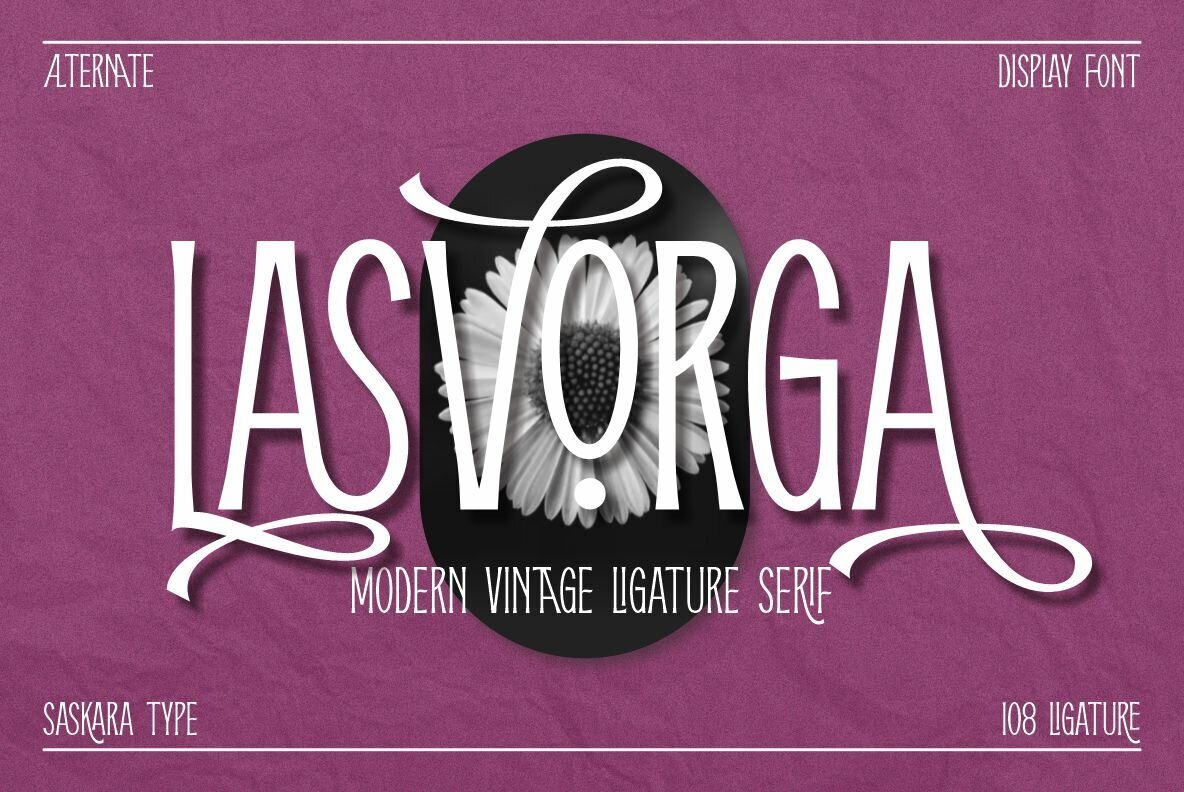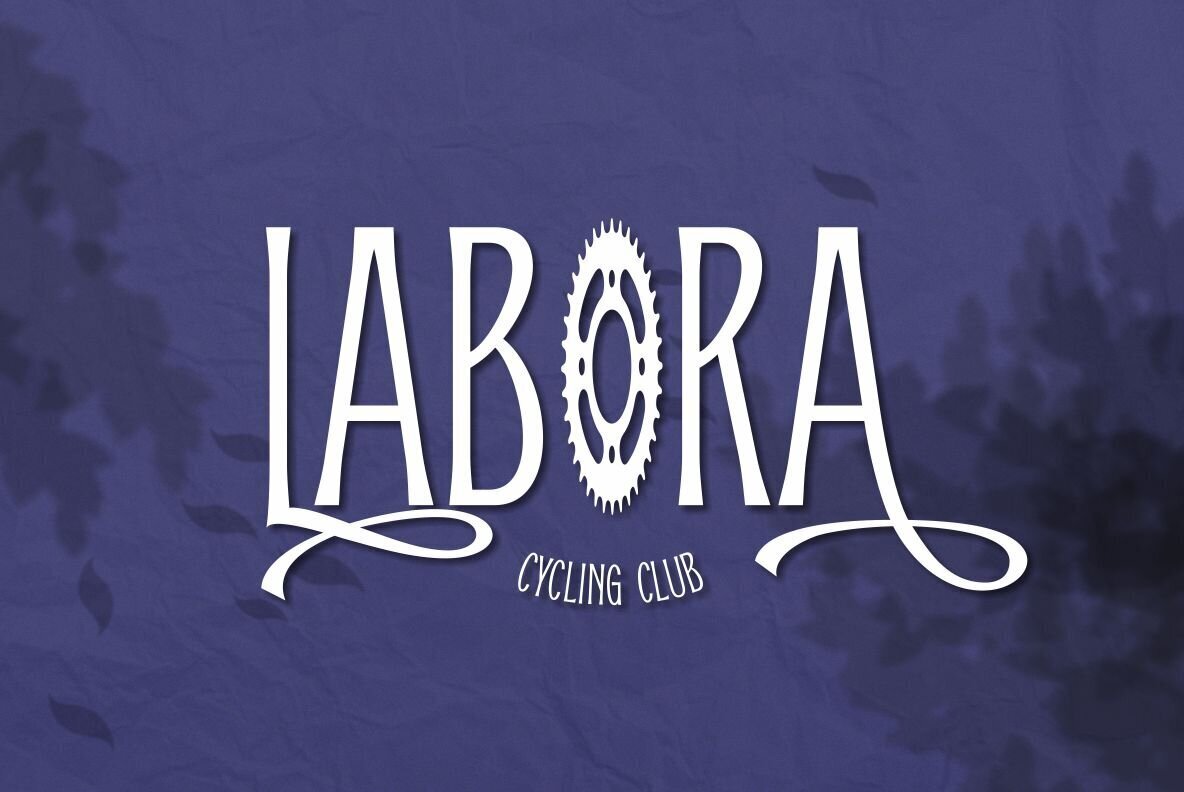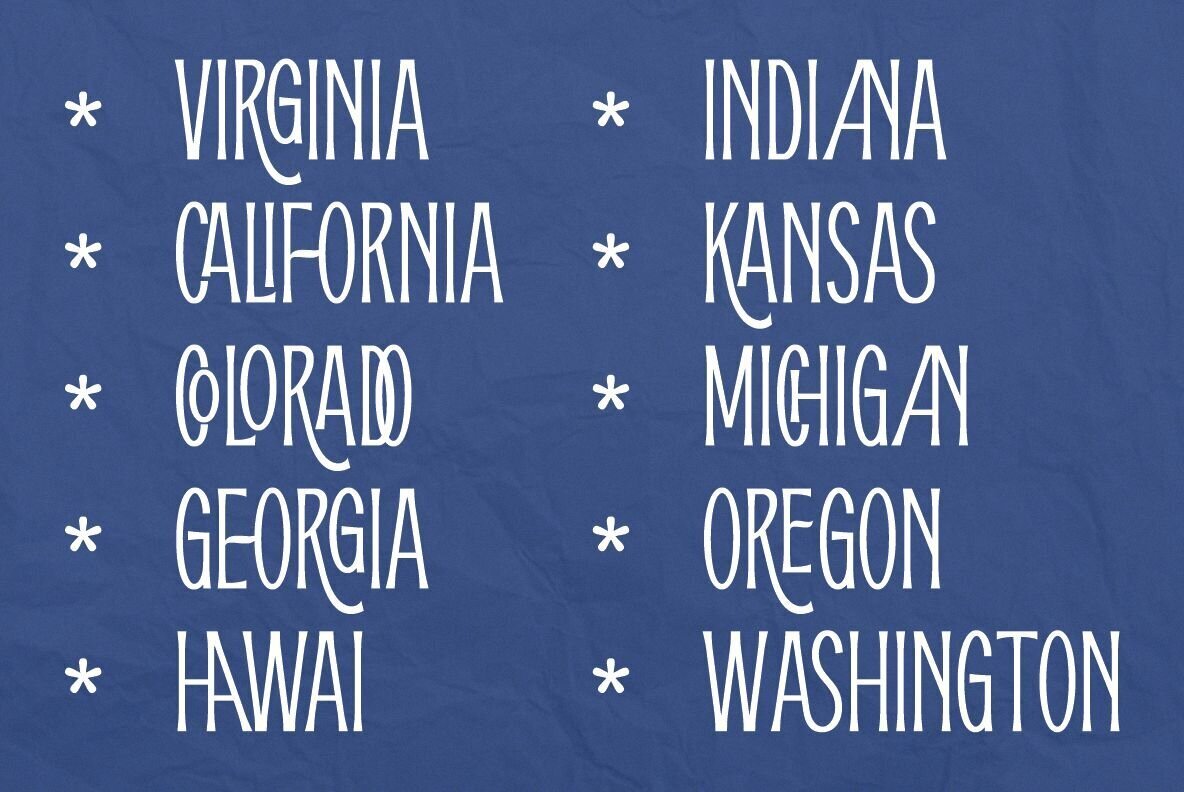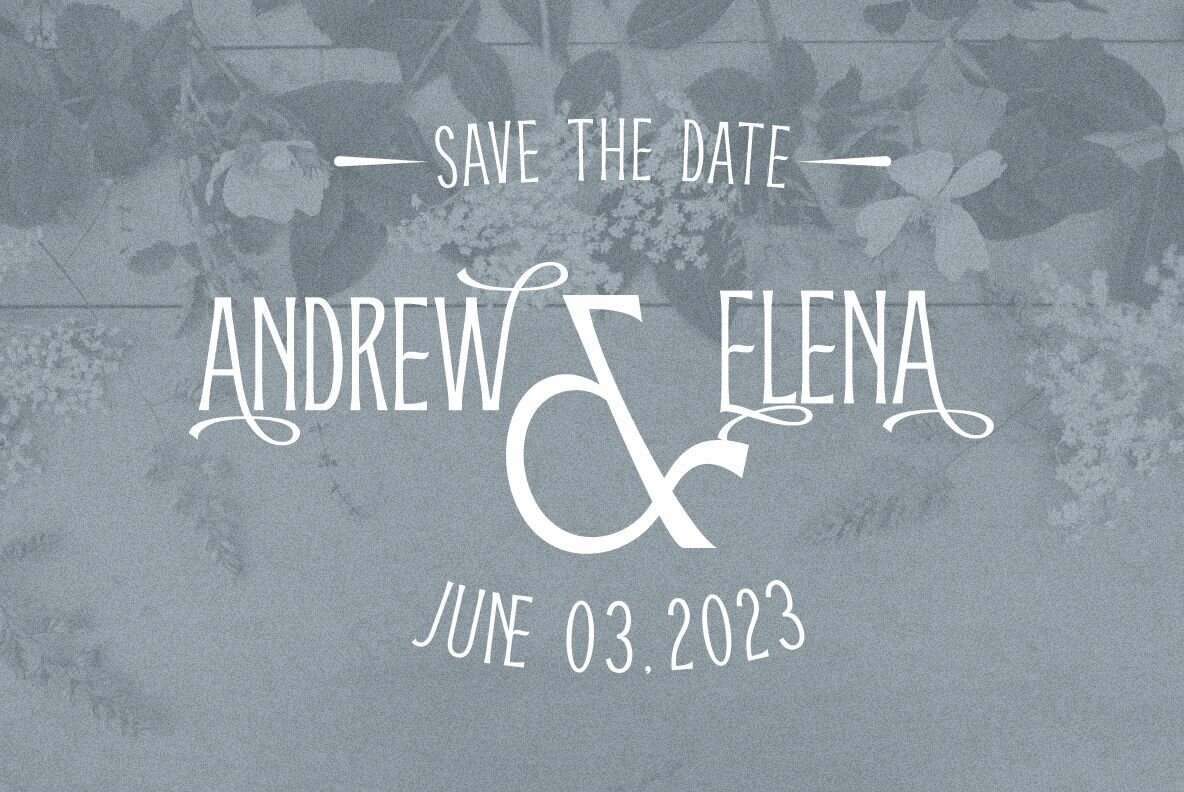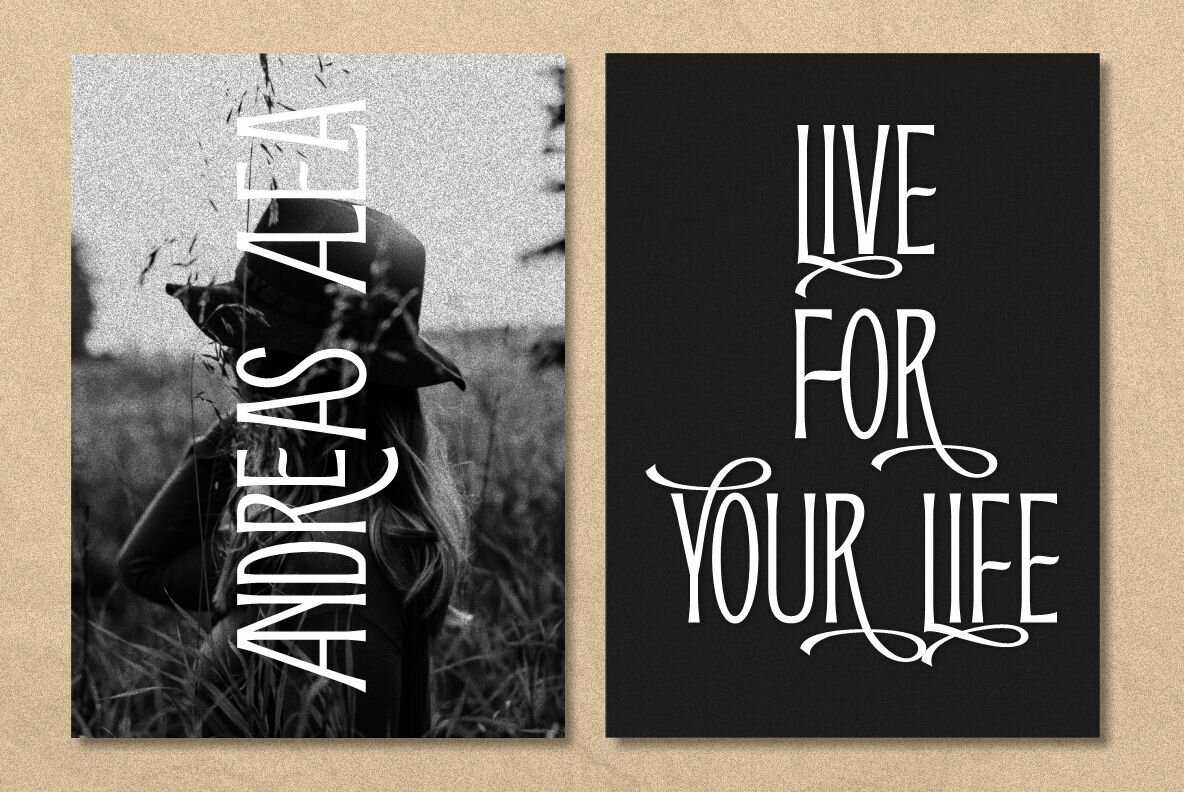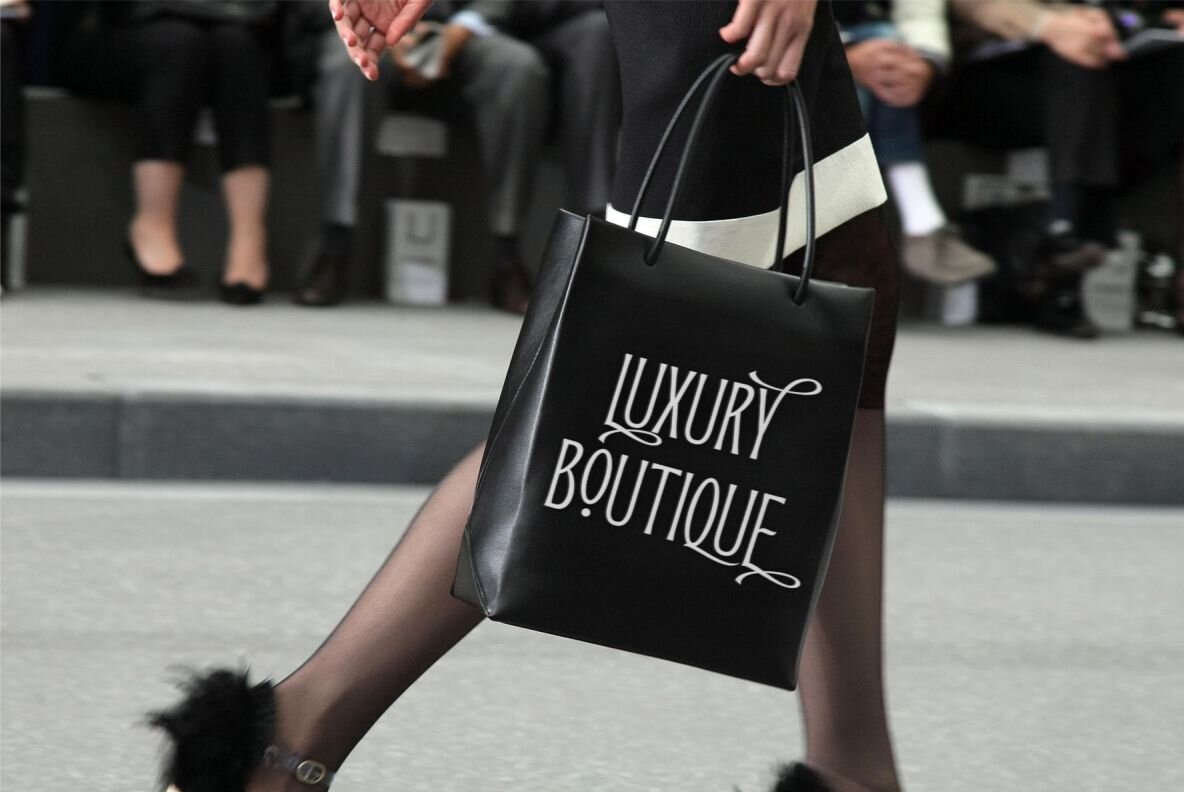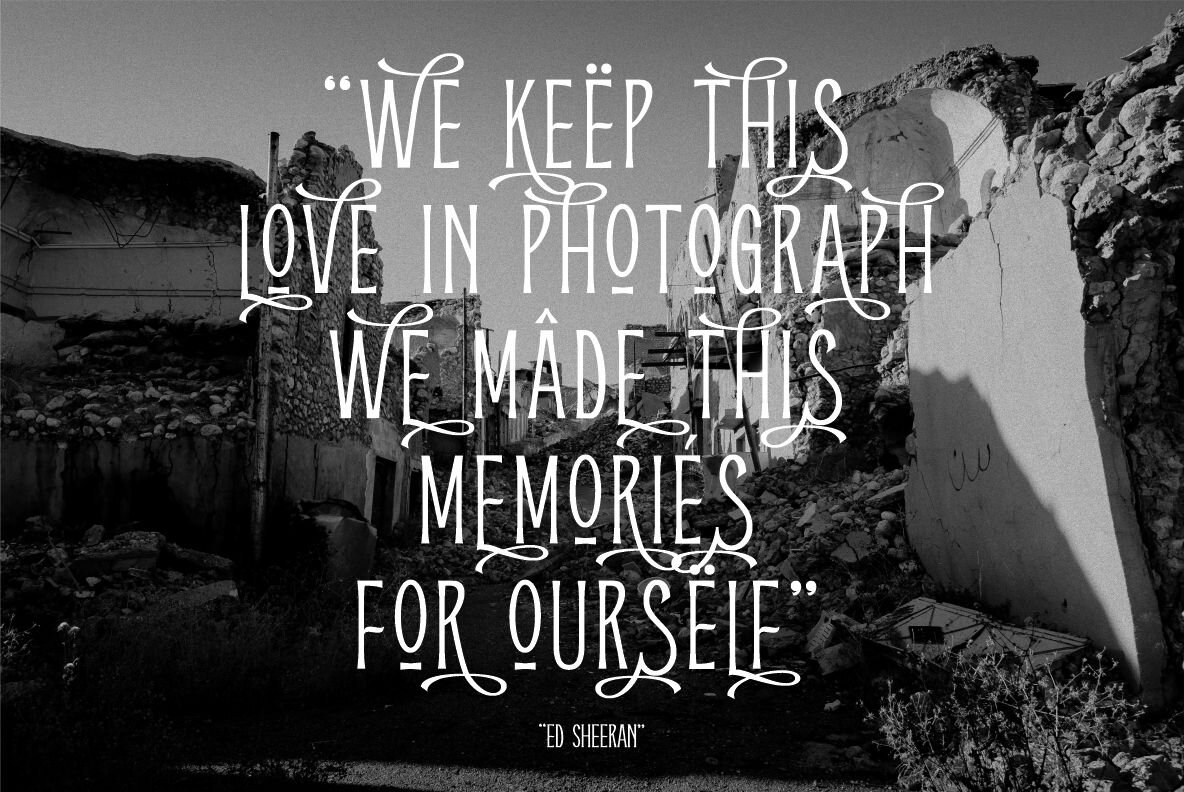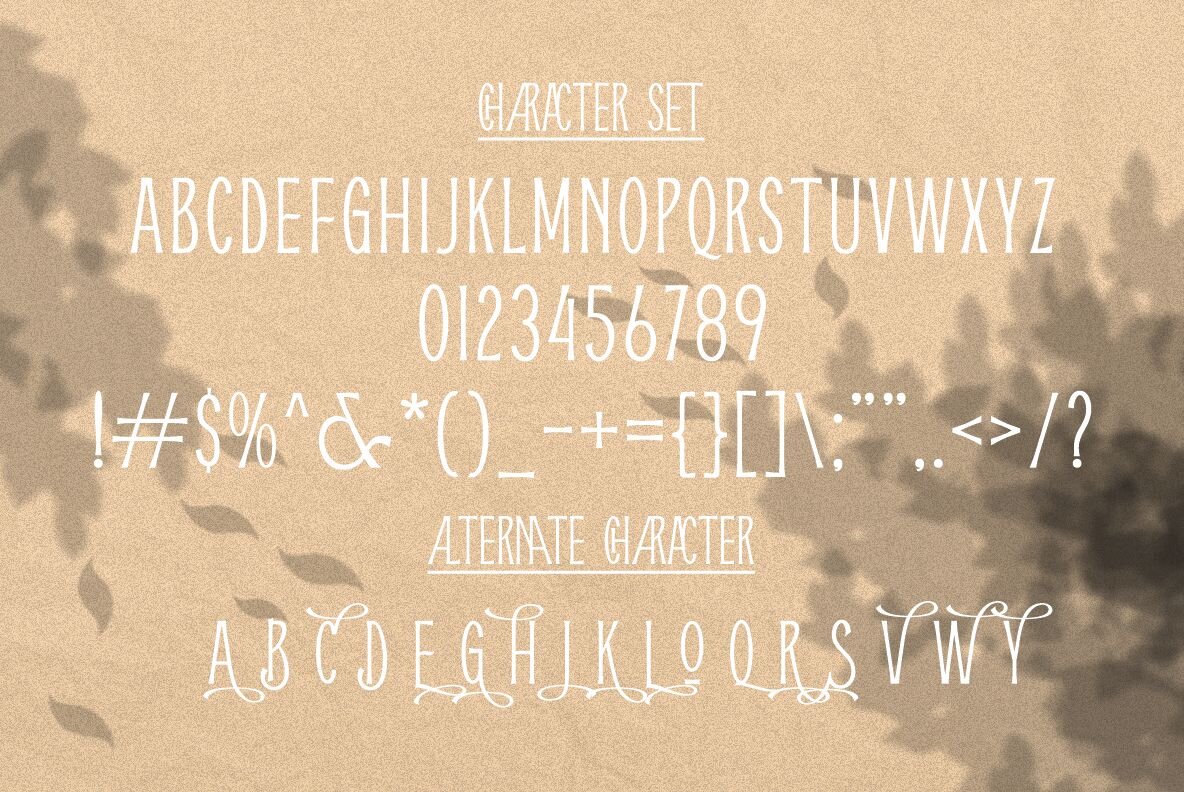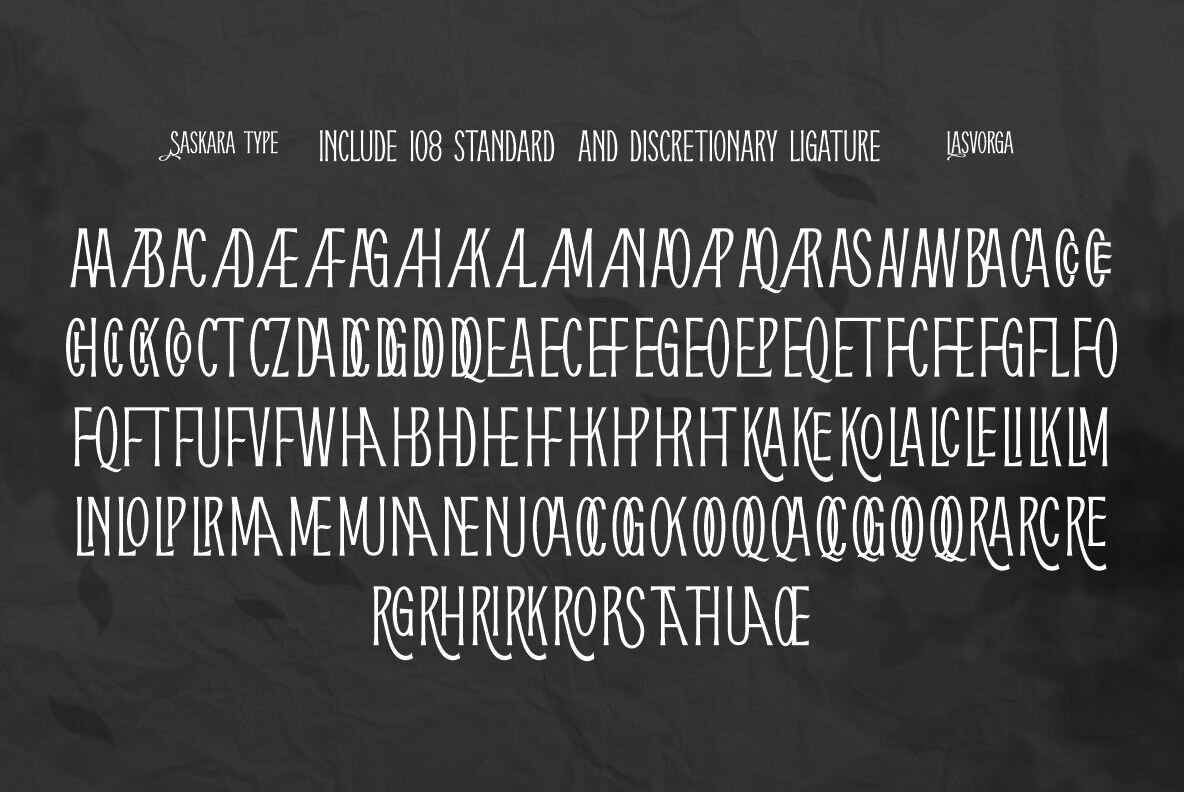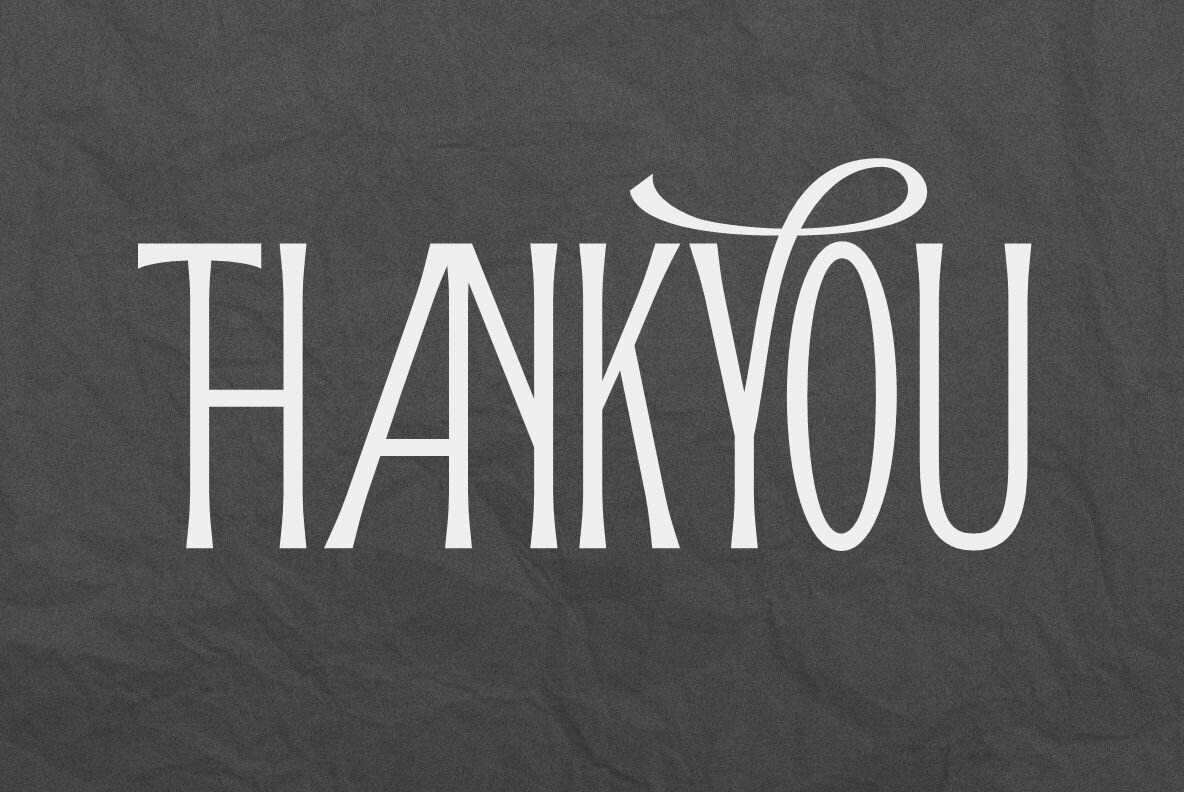
Lasvorga Font
Lasvorga Regular
Lasvorga is a modern style vintage font and there are 108 standard and discretionary ligatures. Additional OpenType features include character variants, style sets, and multilingual support (including multiple currency symbols).
I made this font from the inspiration of old vintage fonts, of course it is very sturdy and makes your design more luxurious. This font is also very good for logo types, magazine headlines, and others. If you need my help please contact me, thank you